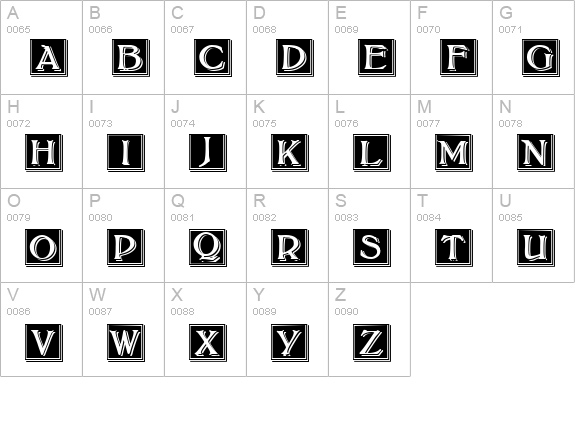
BoltonDropCaps Font Details
BoltonDropCaps is a stunning display font that exudes elegance and sophistication. With its intricate details and unique drop caps design, this font is perfect for adding a touch of class to your projects. Each letter is carefully crafted to make a bold statement and capture the attention of your audience. The beauty of BoltonDropCaps is that it is not only visually appealing, but also highly versatile. Whether you are designing a logo, poster, invitation, or any other creative piece, this font will elevate your work to the next level. Its timeless appeal and classic style make it a must-have for any designer looking to make a lasting impression. What's even better is that BoltonDropCaps is available for free download at FontsMarket.com. You can easily access this exquisite font and start using it in your projects right away. Don't miss out on the opportunity to add this stunning typeface to your collection and take your designs to new heights.